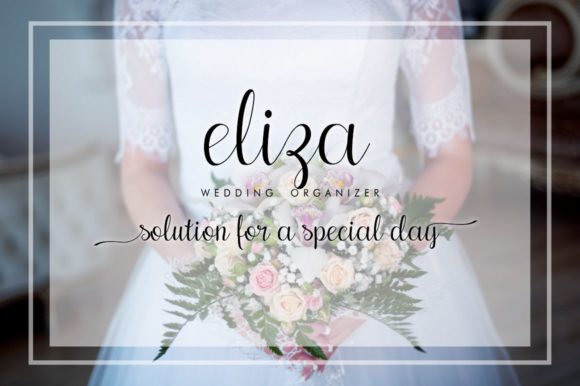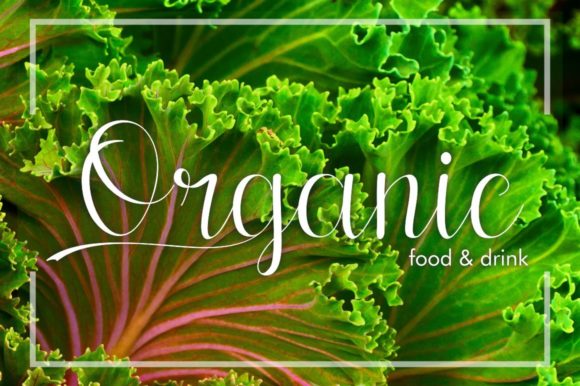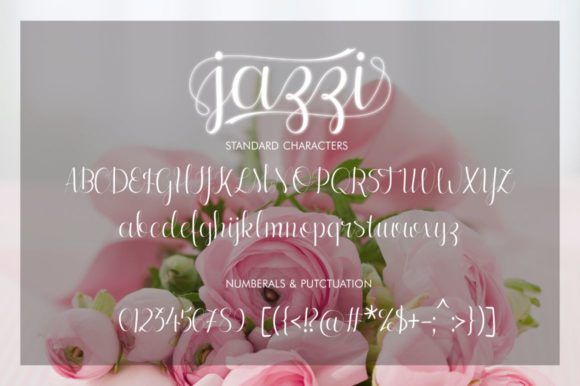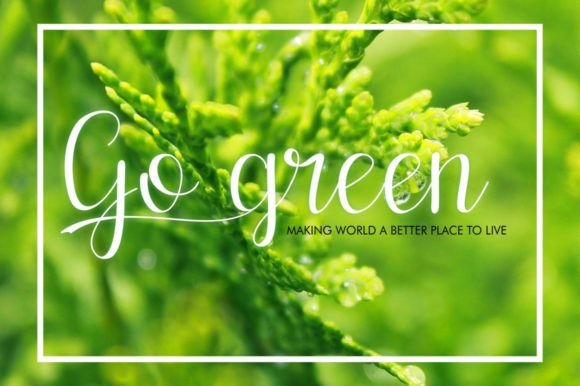
Introduction to Jazzi Font
Have you ever been working on a creative project and suddenly, the perfect font pops into your mind, elevating the entire design? For designers, that ‘aha’ moment is priceless. For me, it was when I stumbled upon the Jazzi Font. Its beautiful, joyful, and smooth handwritten style made me imagine all the stunning wedding invitations, thank you cards, and quotes it could bring to life.
The Jazzi Font is a high-quality design resource that’s perfect for any creative project. With its PUA encoded feature, accessing all the glyphs and swashes is a breeze. This means you can add a personal touch to your designs with ease, whether it’s a business card, logo, or greeting card. The Jazzi Font is also available for free download, making it a valuable resource for designers who want to add a professional and creative touch to their work.
With its versatility and unique style, the Jazzi Font is a must-have for any designer looking to take their designs to the next level. Whether you’re working on a design with a transparent background or a more traditional layout, the Jazzi Font is sure to bring a smile to your face and a touch of elegance to your work.
Key Features of Jazzi Font
- High-quality, professional design resource ideal for creative projects.
- Designed with a unique, modern aesthetic, making it perfect for contemporary creative projects.
Honest Review: Jazzi Font
I recently stumbled upon the Jazzi Font, a free download that I thought I’d give a shot for a creative project I’m working on. I must say, I’m impressed with the high quality of this design resource. The font’s playful and modern feel makes it perfect for a variety of applications, from logos to posters.
- ✨ One of the things that stands out about the Jazzi Font is its transparent background, which allows for seamless integration with any design element.
- ✨ The font’s versatility and flexibility make it an excellent choice for a wide range of creative projects.
However, I do have a few reservations about the Jazzi Font.
- ⚠️ The font’s character set is somewhat limited, which may not be suitable for projects that require a large number of characters.
- ⚠️ The font’s aesthetic may not appeal to everyone, and some users may find it too playful or over-the-top.
Overall, I’m pleased with the Jazzi Font and would recommend it to designers who are looking for a high-quality, free download for their creative projects. While it may not be perfect, it’s a great addition to any design resource library.
Getting the Most Out of Jazzi Font
For the best results, use the Jazzi Font on a high-quality design resource with a transparent background. This will allow you to create a seamless and professional-looking design. You can also use the font in a free download format to experiment with different design ideas.
The Jazzi Font is ideal for creative projects that require a unique and stylish font. Some common use cases include:
– Designing business cards and brochures
– Creating social media graphics and ads
– Developing brand identity and logos